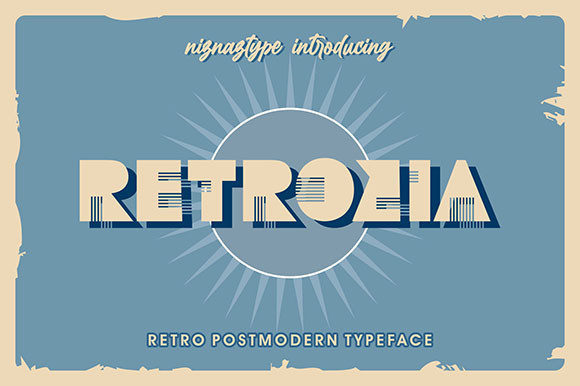
**Indulge in the Enchanting Realm of Retrozia Font**
Embark on a captivating journey with Retrozia Font, where nostalgia and elegance intertwine. Crafted with meticulous attention to detail, this display font exudes a captivating charm that will transport your creative endeavors to extraordinary heights.
Immerse yourself in the alluring allure of Retrozia, a font that whispers tales of bygone eras. Its vintage-inspired curves and sweeping lines evoke a sense of timeless romance, making it the perfect choice for love letters, heartfelt invitations, and ethereal graphic designs.
Let Retrozia be your muse, guiding you through the labyrinth of creative possibilities. Its versatility knows no bounds, effortlessly adapting to a myriad of design ventures, from captivating logos and striking headlines to alluring posters and enchanting book covers.
Step into a world where creativity blossoms and emotions soar. Retrozia Font is not merely a font; it's an invitation to embark on a creative expedition, where imagination knows no limits and the boundaries of design are gracefully transcended.